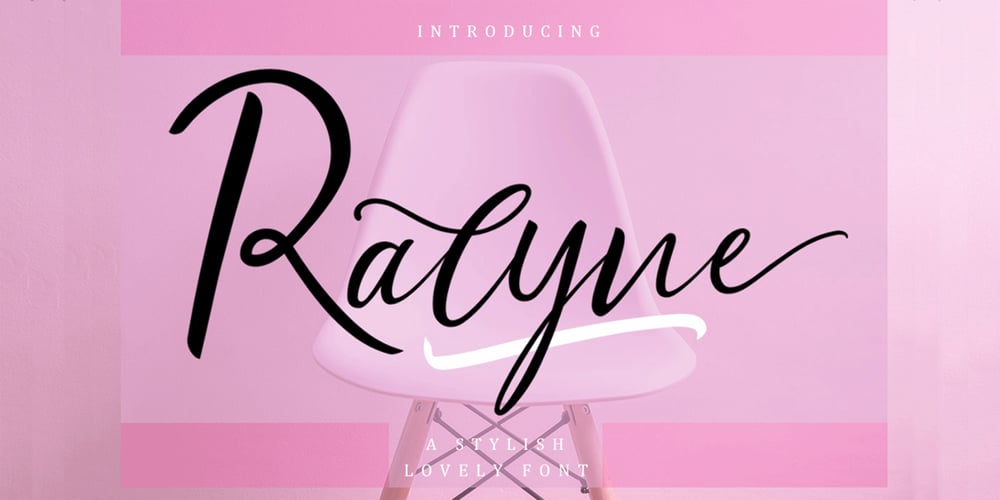
Ralyne Script Font Family was designed by Putra Khan and published by Mindtype Co.. Ralyne Script contains 2 styles and family package options. Introducing Ralyne, a stylist lovely calligraphy font with handwritten, sophisticated flows. Ralyne offers beautiful typographic harmony for a diversity of design projects, including logos & branding, wedding designs, social media posts, advertisements & product designs. Ralyne includes full set of lovely uppercase and lowercase letters, multilingual symbols, numerals, punctuation and ligatures.